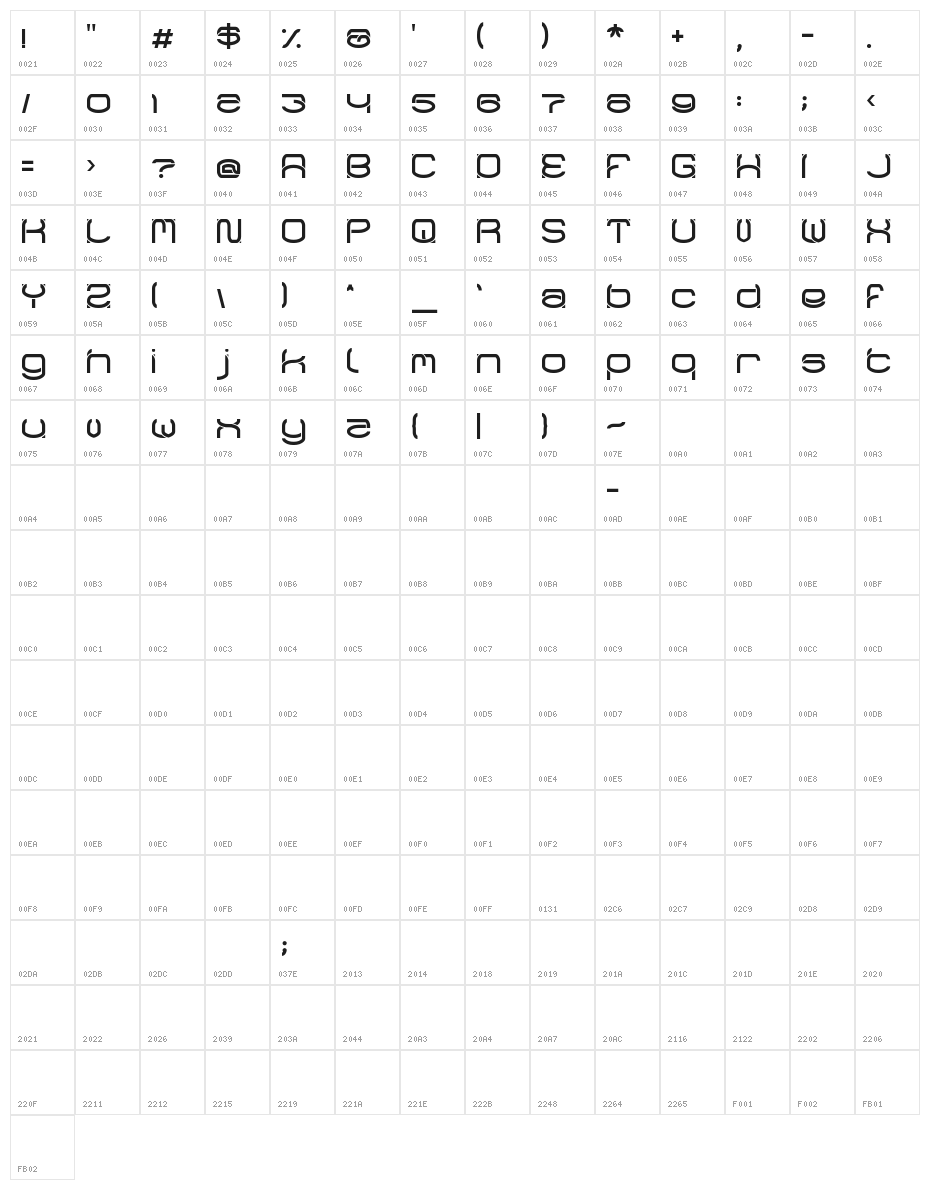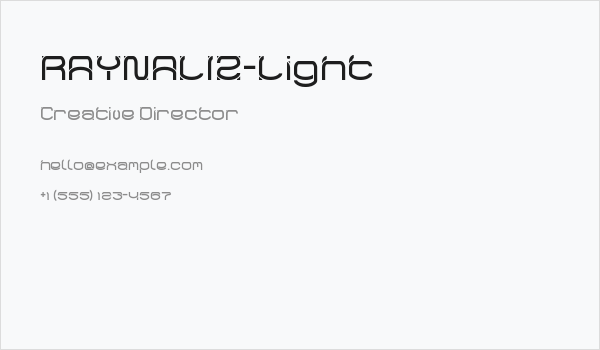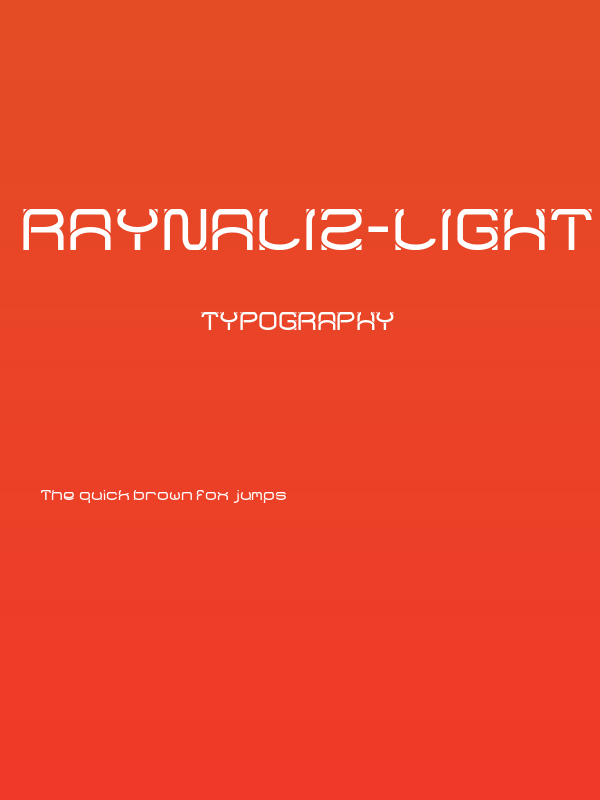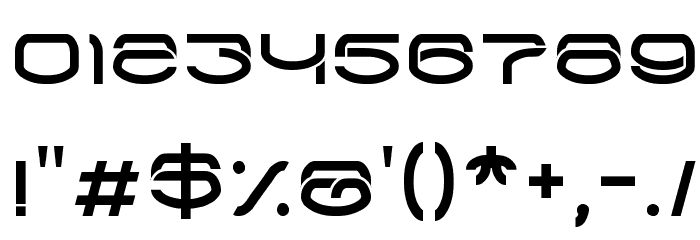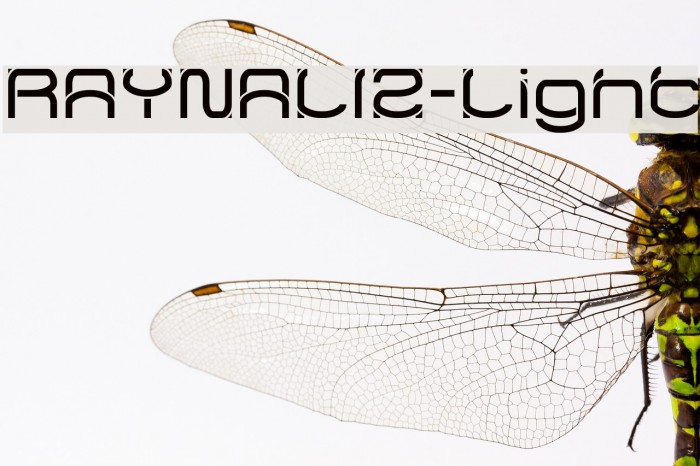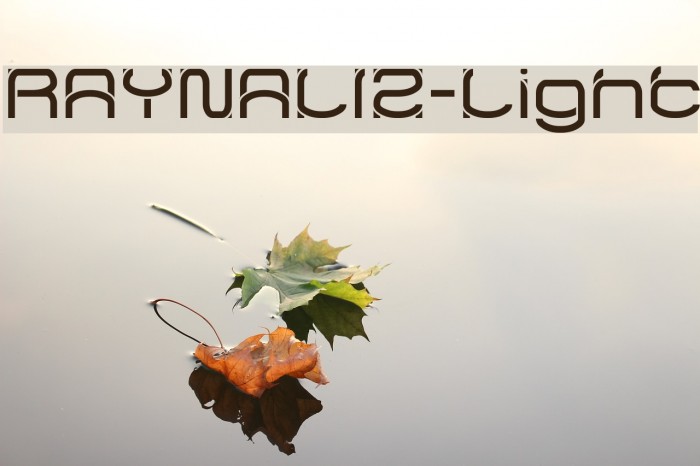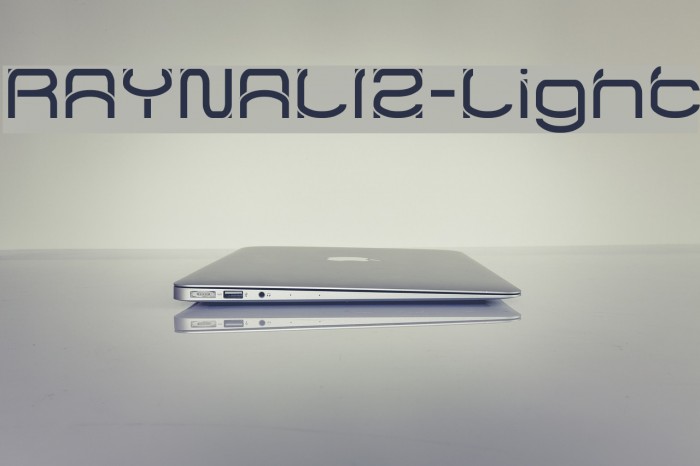
RAYNALIZ-Light Font
RAYNALIZ-Light Description
This font features a modern and futuristic design with a unique geometric structure. The characters are composed of clean lines and rounded edges, giving it a sleek and contemporary appearance. The uppercase and lowercase letters maintain a consistent style, with a focus on symmetry and balance. The numerals and special characters are designed to complement the overall aesthetic, making it suitable for digital and print media. Its distinct style makes it stand out, yet it remains legible and versatile for various applications.